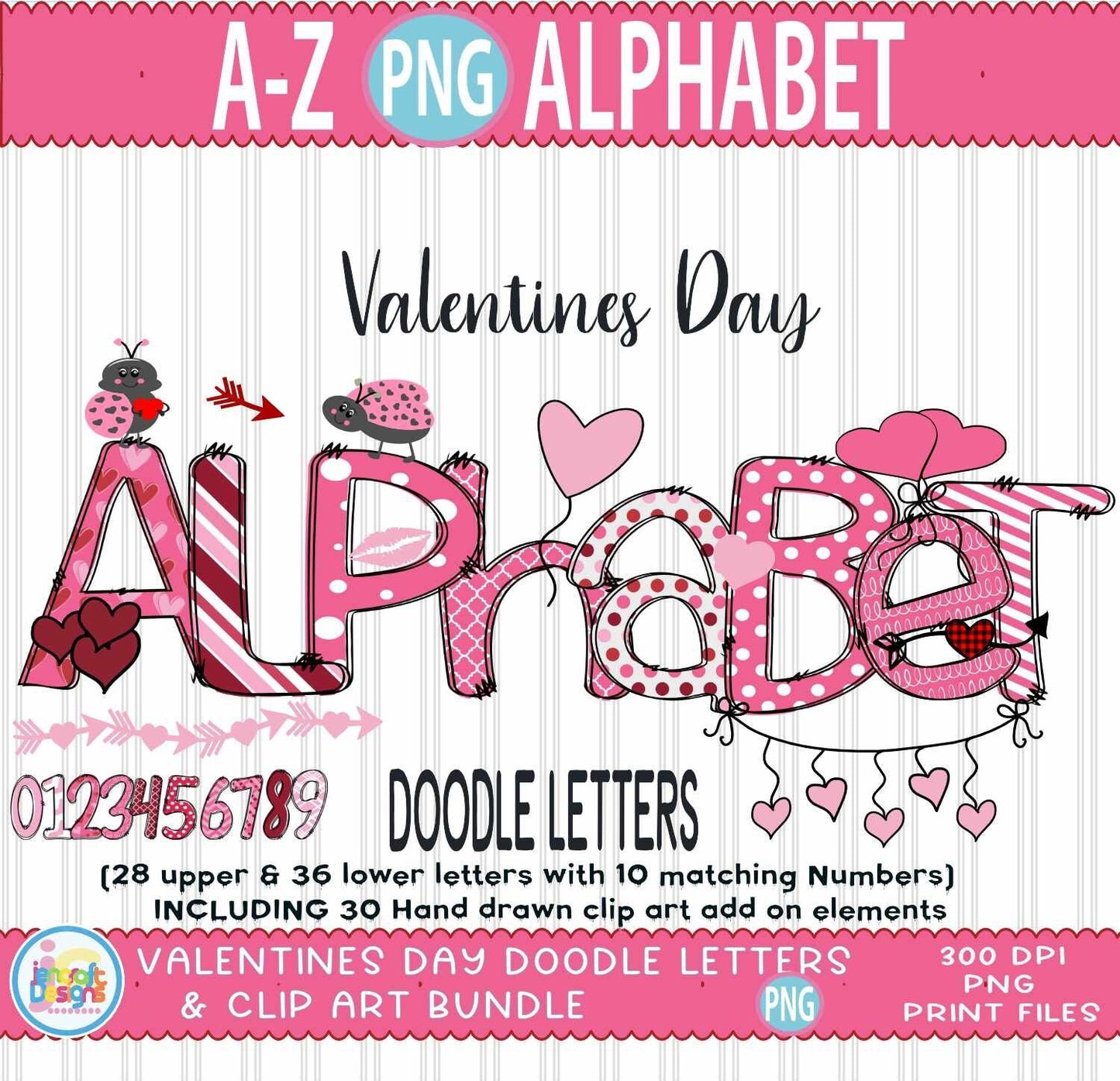
Valentine Doodle Letters PNG | Valentine's Day Alphabet Sublimation Bundle
Spread the love with this sweet Valentine Doodle Letters PNG set! Each hand-drawn letter bursts with heart-filled charm — perfect for personalizing tumblers, shirts, mugs, totes, and all your Valentine’s Day sublimation projects. A must-have alpha pack for makers who want a font that feels as warm as the holiday itself.
- Numbers and clipart add-ons
- High-resolution, hand-drawn artwork